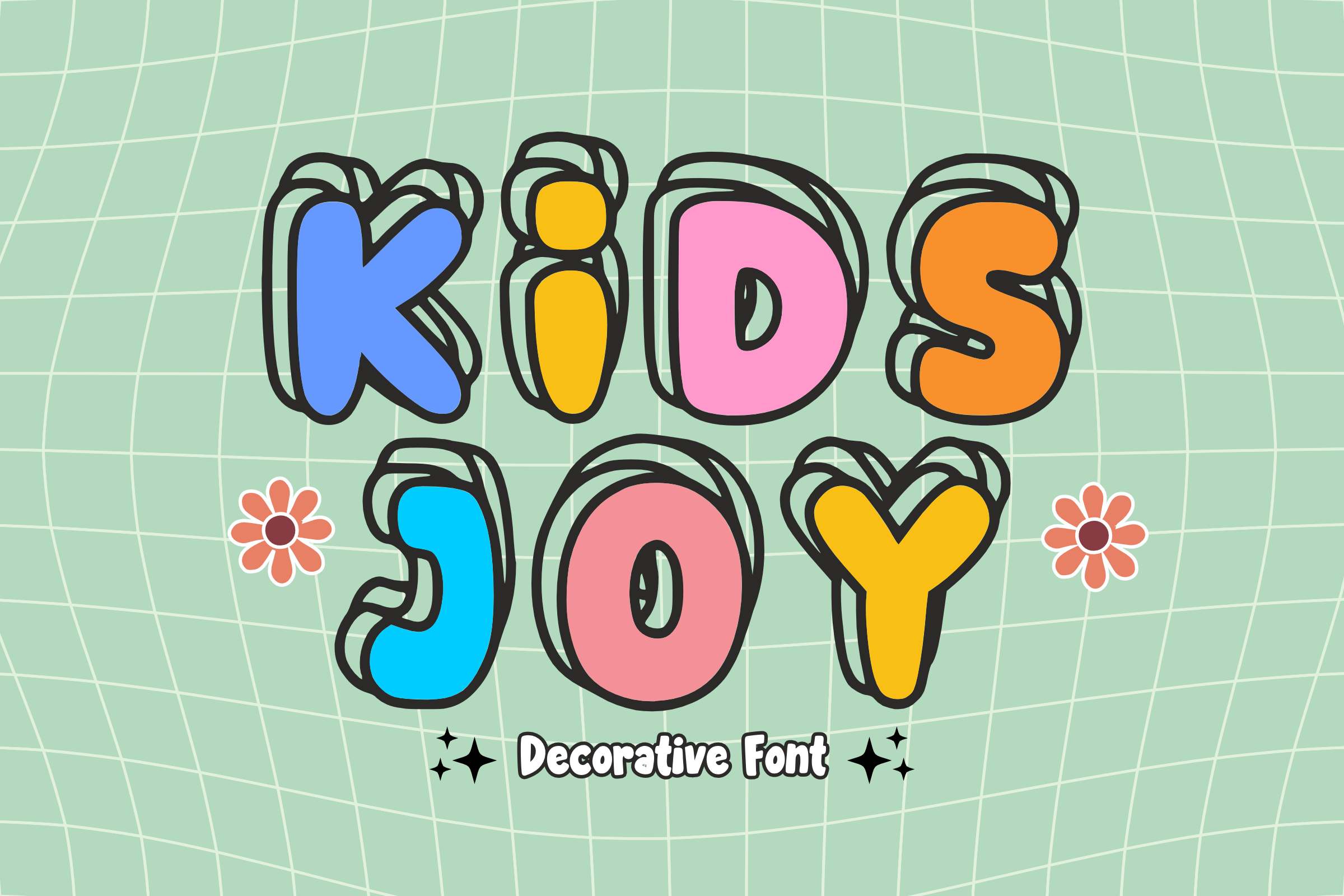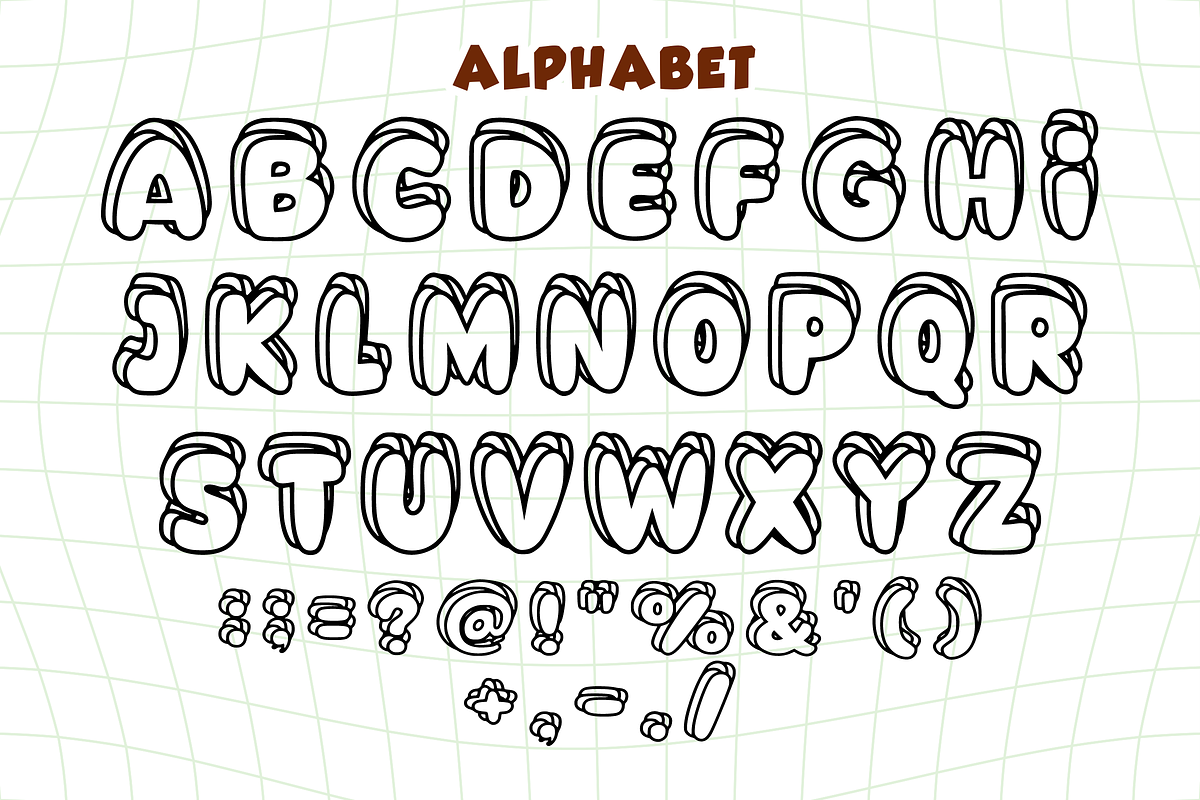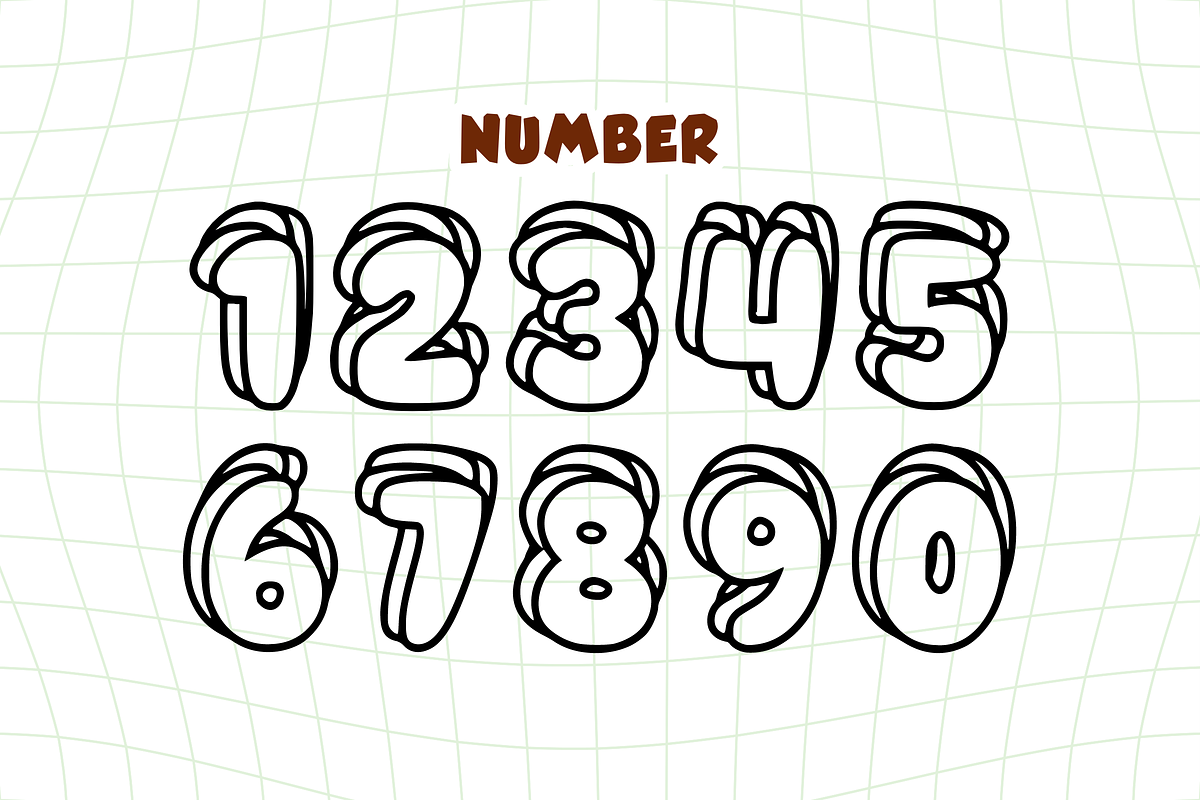
Kids Joy - Display Font Kids
🌈 Kids Joy - Bouncy & Cheerful Display Font ✨ Spread happiness with Kids Joy! This vibrant display font is designed to capture the pure excitement of being a kid. Featuring thick, rounded characters with a clean "sticker-style" outline, it creates a bold and bouncy look that practically jumps off the screen.
Its friendly weight and playful rhythm make it the ultimate choice for any design that needs to feel welcoming, energetic, and full of life!
🌟 Key Features: 🎈 Uppercase Alphabet: Bold, chunky letters that are easy to read and fun to look at.
🔢 Numbers 0-9: Perfectly coordinated numerals for all your counting needs.
💫 Simple Symbols: Essential punctuation to add that perfect finishing touch.
✂️ Sticker Ready: Smooth, high-quality outlines ideal for vinyl cutting and printing.
🎨 Perfect For: 🏫 School & Teaching: Classroom posters, teacher resources, and school banners.
🧸 Children's Branding: Toy packaging, logos, and kids' clothing brands.
🎂 Parties & Events: Birthday invitations, cake toppers, and favor tags.
📱 Digital Content: Joyful YouTube thumbnails and fun social media graphics.
🖍️ DIY Crafts: Personalized stickers, scrapbooking, and home projects.